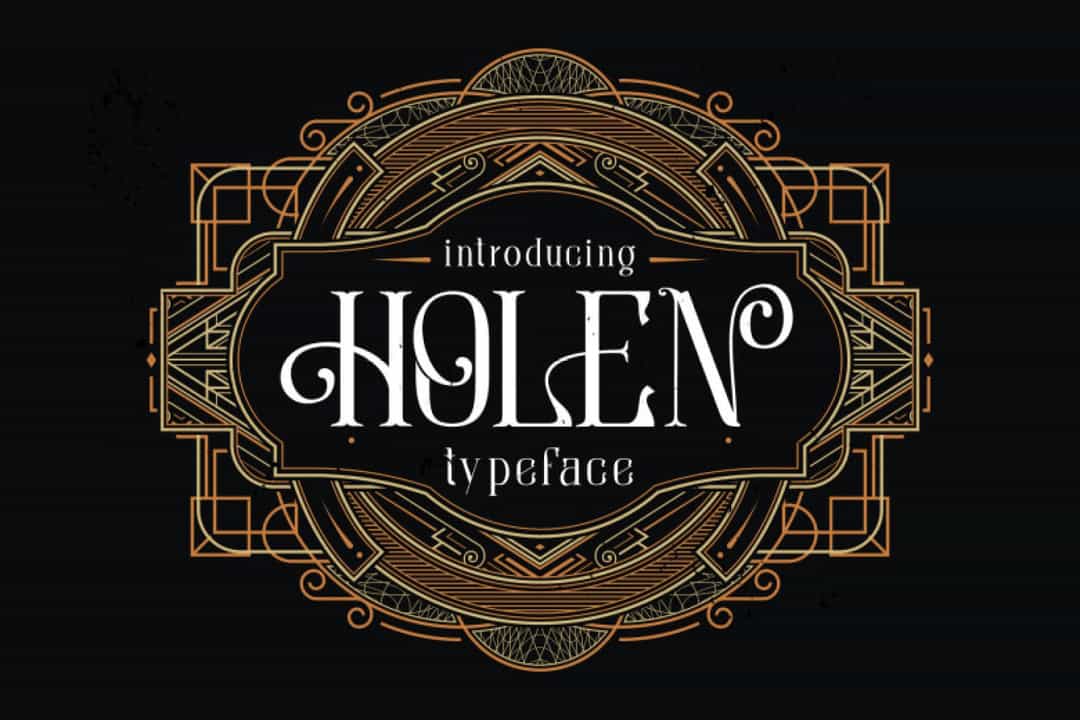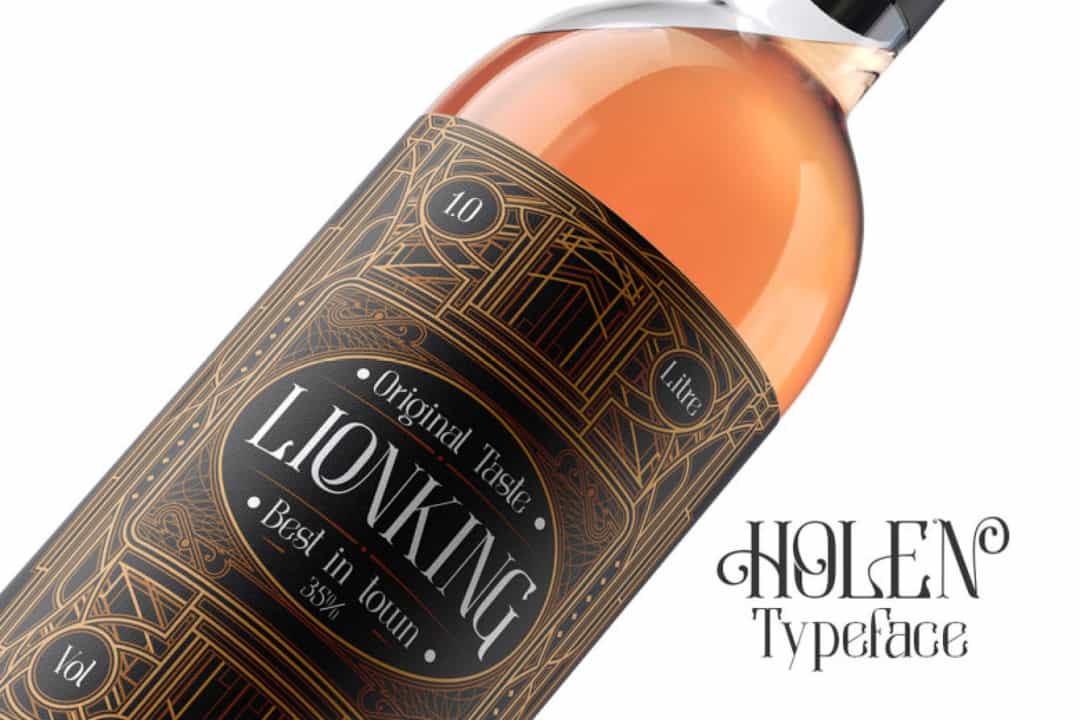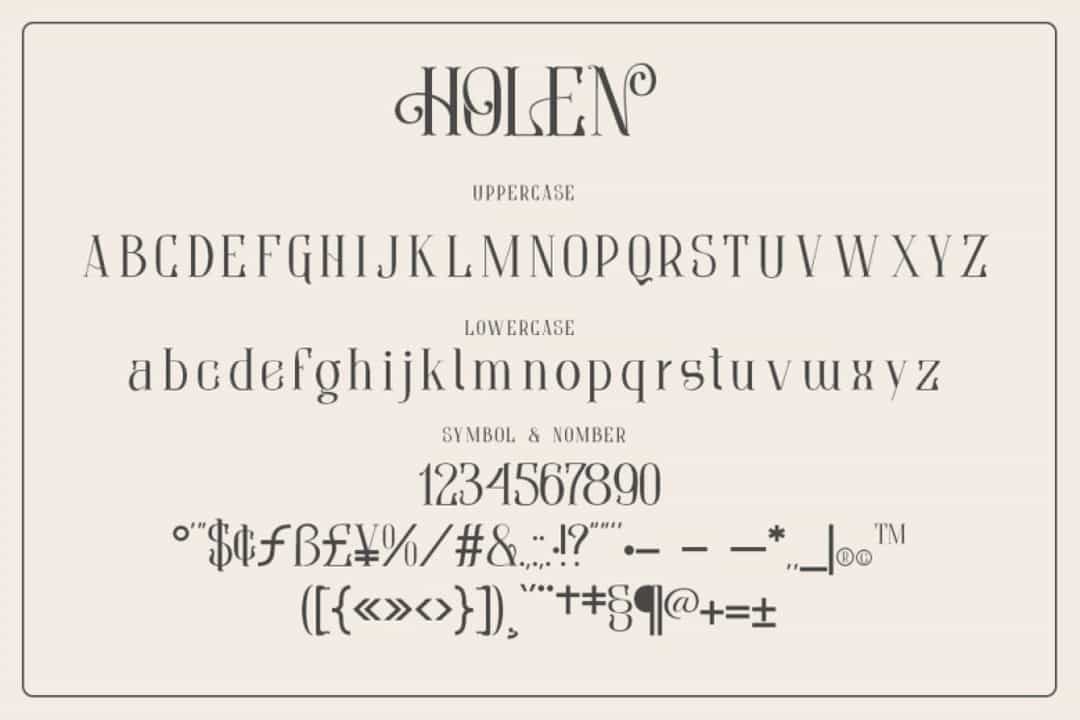
Holen is an exceptional serif font inspired by both 1800s and modern day styles, elegant yet charming, elegant curly lines, a lovely cursive style and PUA encoded for easy character access! PUA stands for “Programmatically Unicode Acknowledging”, meaning all character glyphs as well as swashes can be quickly and efficiently accessed!